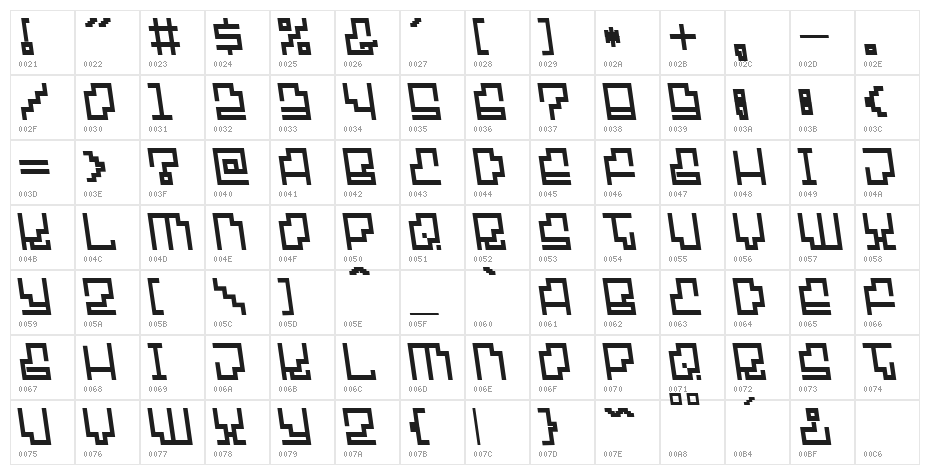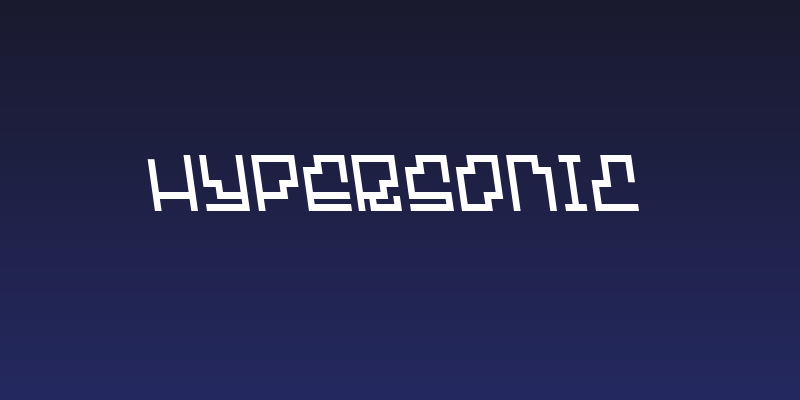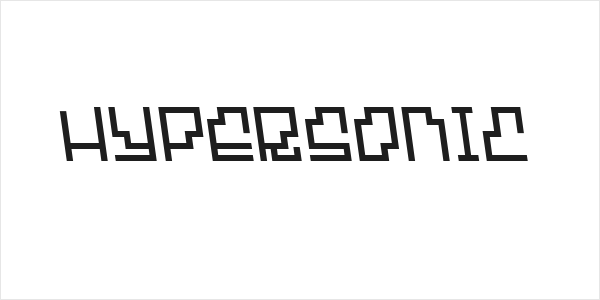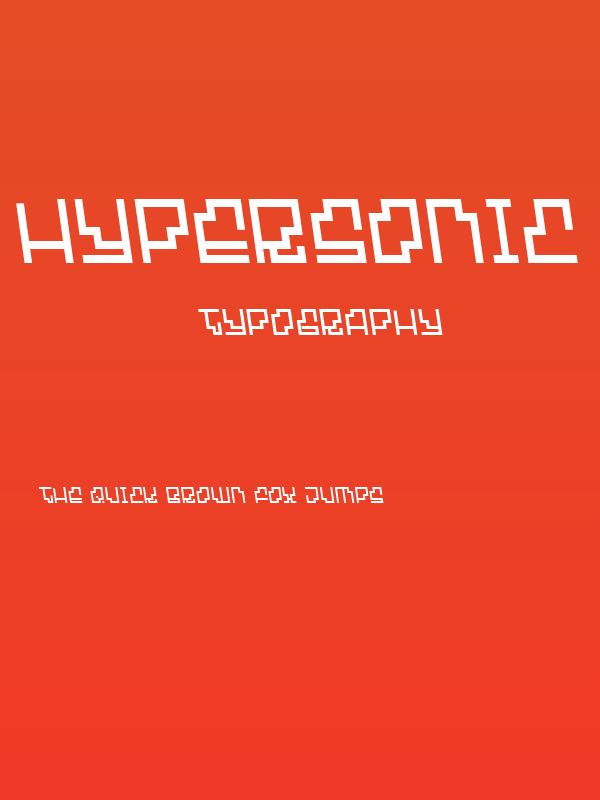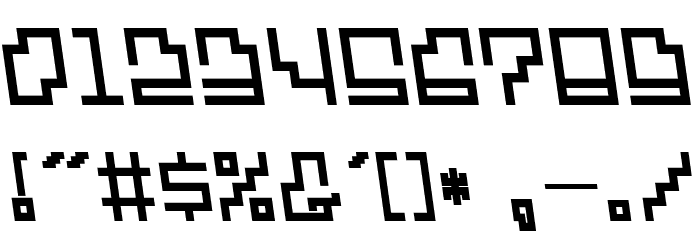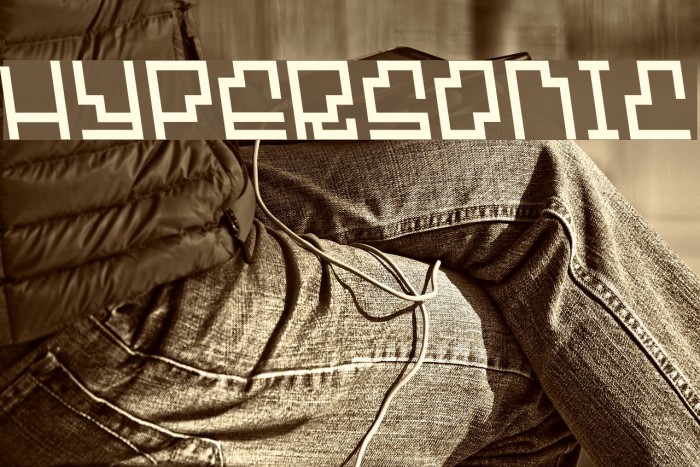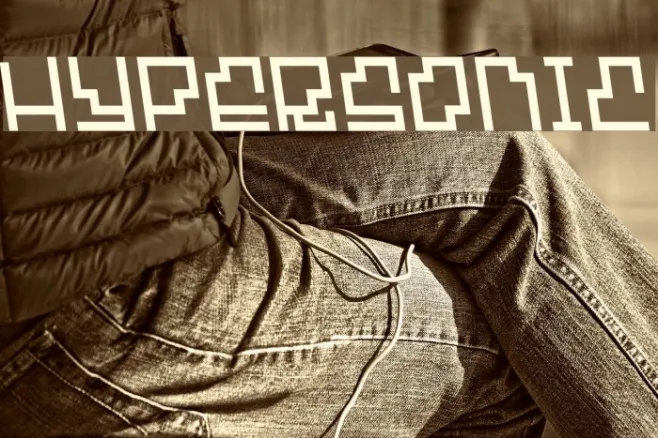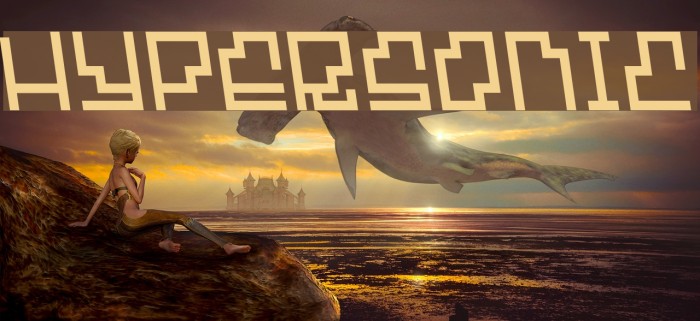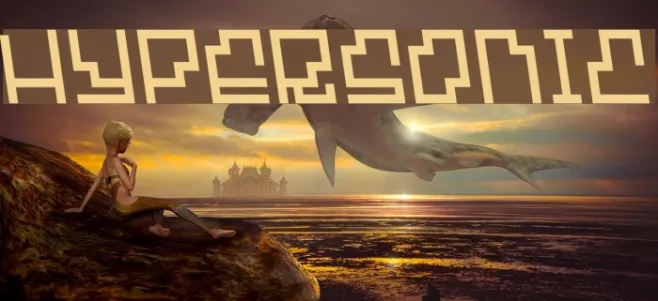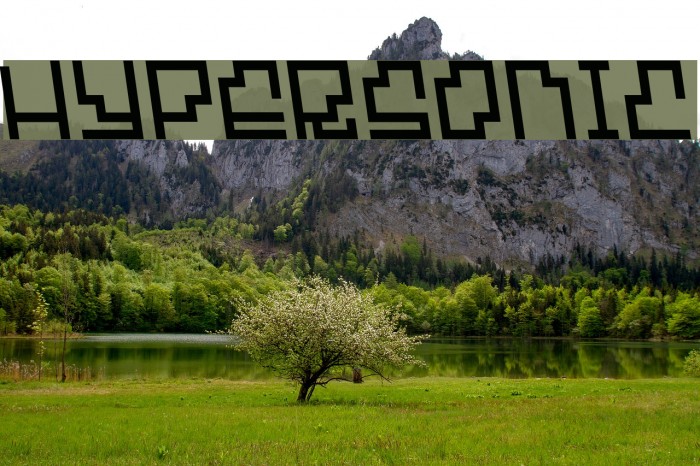
Hypersonic Font
Hypersonic Description
This font features a bold, geometric design with a futuristic and digital aesthetic. Each character is constructed with sharp, angular lines and a blocky structure, reminiscent of pixel art or digital displays. The uppercase and lowercase letters maintain a consistent height, creating a uniform appearance. The numbers and special characters follow the same stylistic approach, ensuring cohesion across all elements. The font's unique style makes it stand out, ideal for projects that require a modern and tech-inspired look.
| Proposed Projects | Ideal for tech-related branding, video game design, digital art projects, and futuristic-themed posters. |